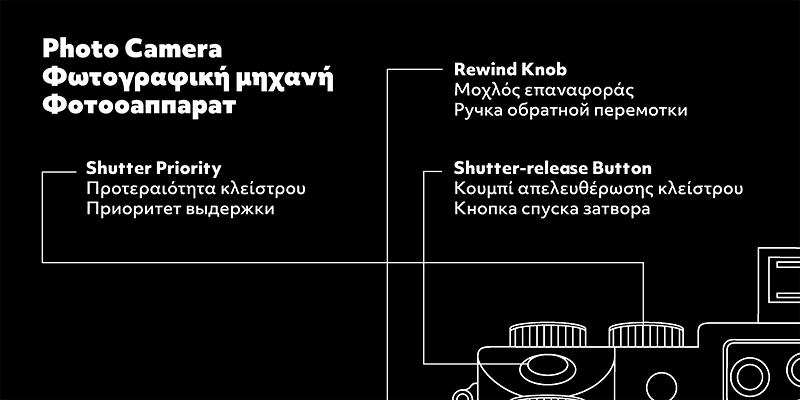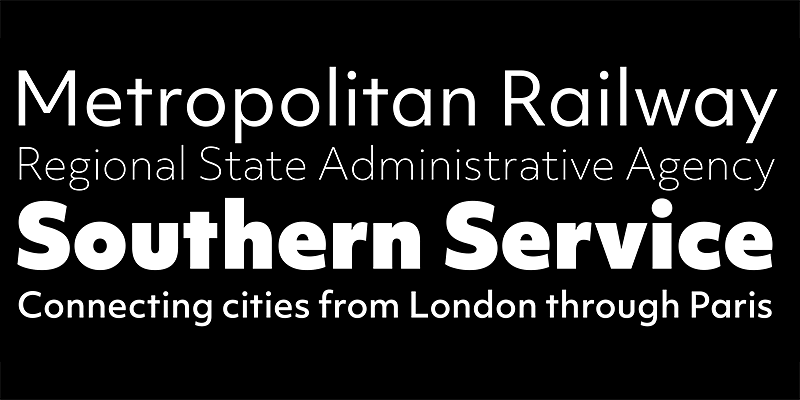
Objektiv takes a new look at geometry; it follows mathematical principles but remembers that it is a design to be used by humans. Variants Mk1, Mk2, and Mk3 vary from geometric purity to legibility.